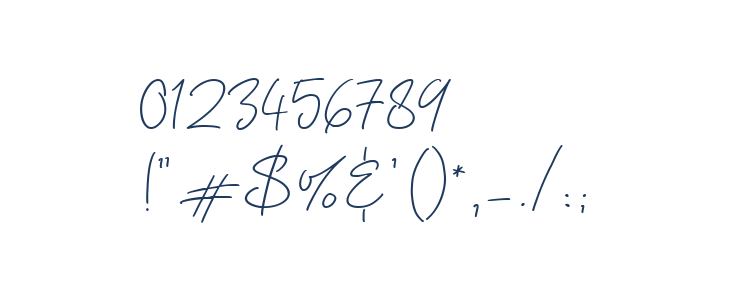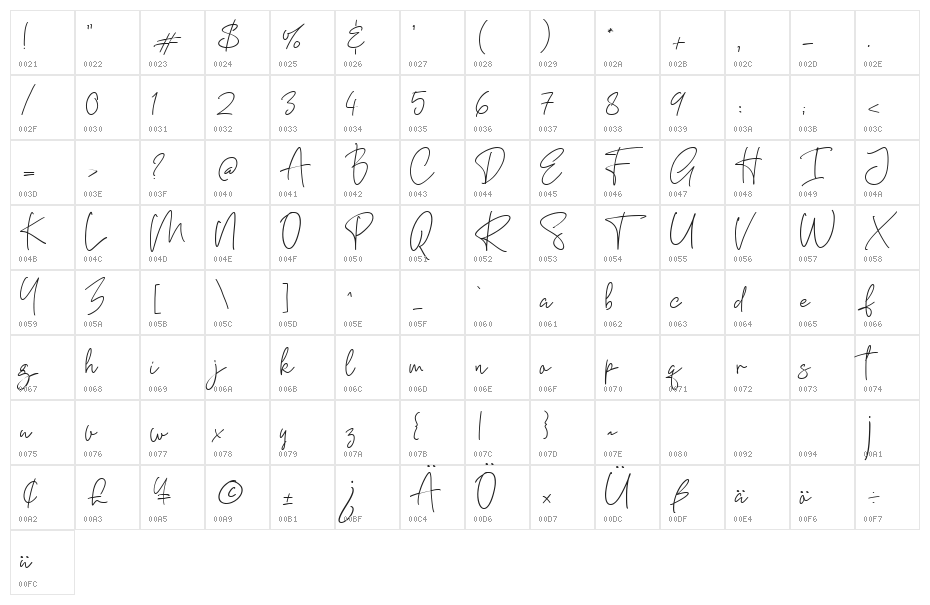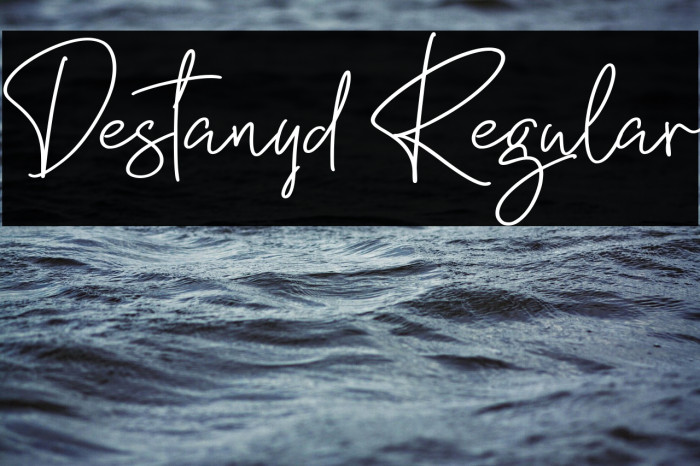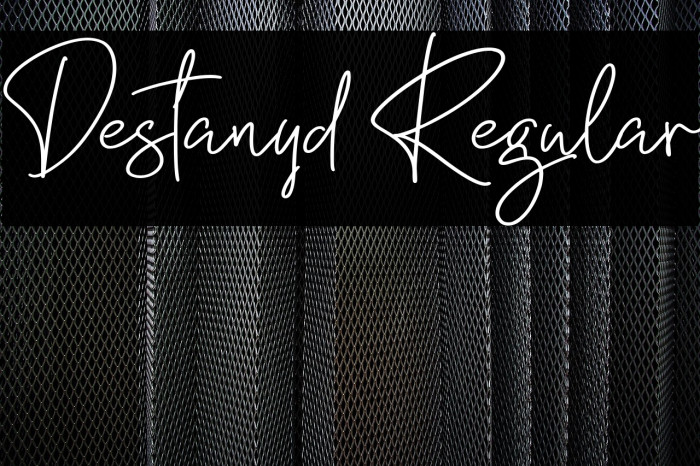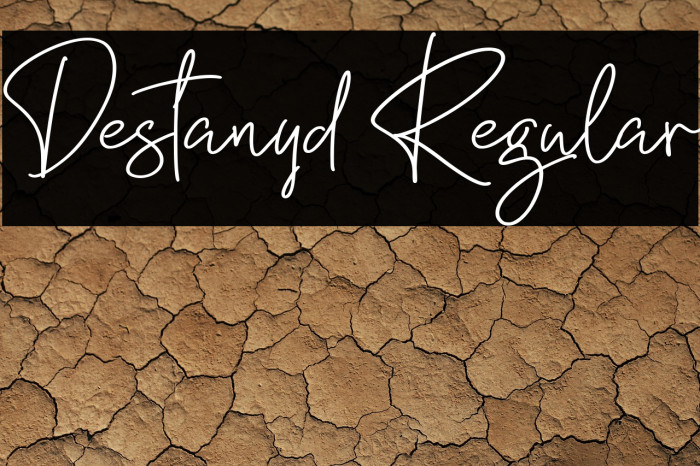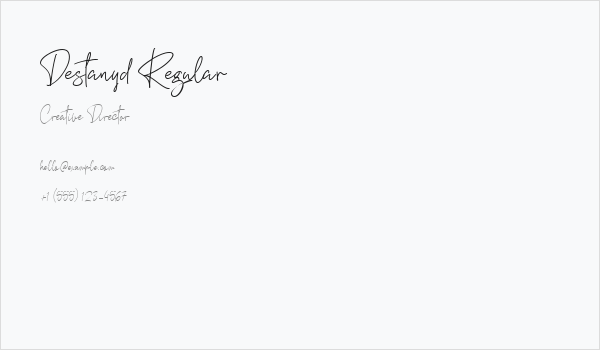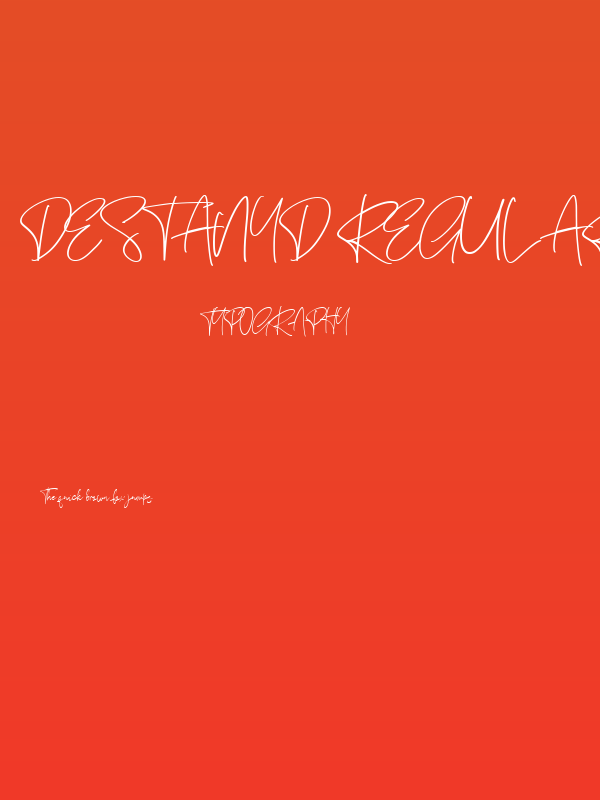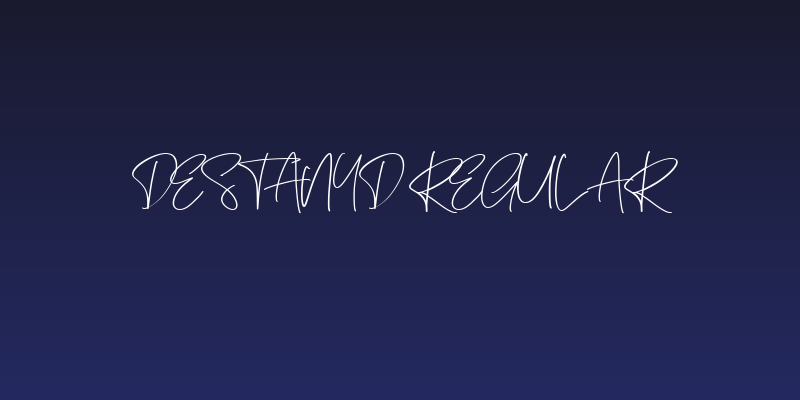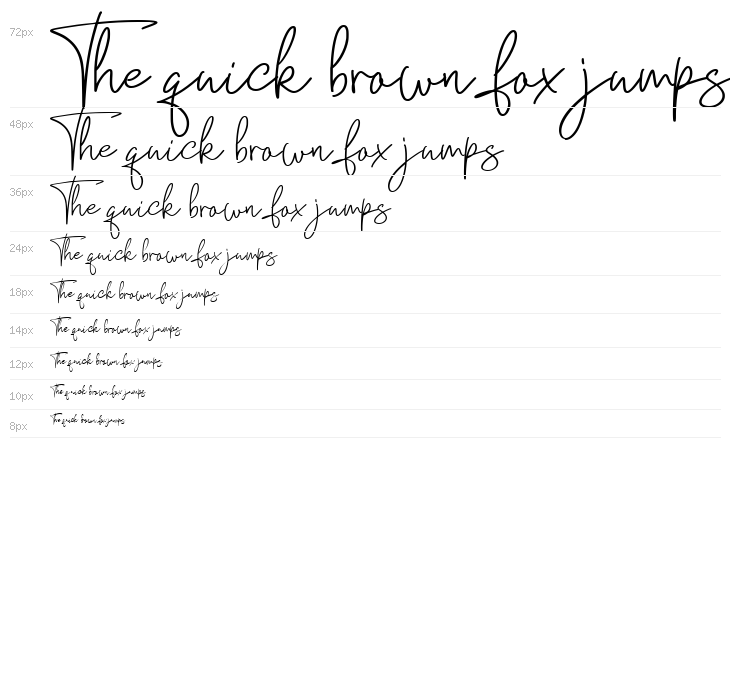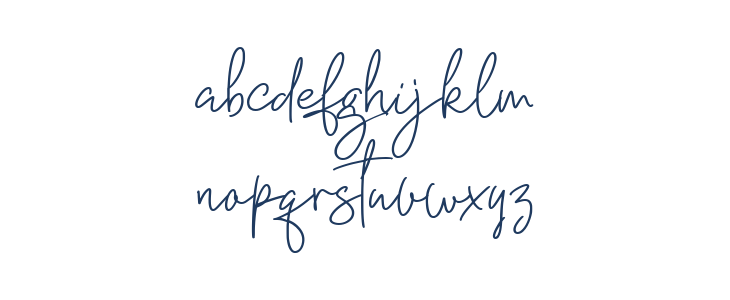
Destanyd Regular Font
Destanyd Regular Description
This font exudes a casual, handwritten style with a flowing, cursive appearance. The letters are connected, giving it a natural and personal touch, reminiscent of a quick, elegant script. The uppercase letters maintain a consistent height, while the lowercase letters have a slight slant, adding to its informal charm. The numerals and special characters are crafted with the same fluidity, ensuring a cohesive look across all elements. The strokes vary slightly in thickness, providing a subtle contrast that enhances readability without compromising the font's delicate aesthetic.
| Overall Style | Casual, Elegant |
| Use Case | Logos, Invitations, Social media graphics |
| Proposed Projects | Ideal for personal invitations, greeting cards, branding projects, and social media graphics. |